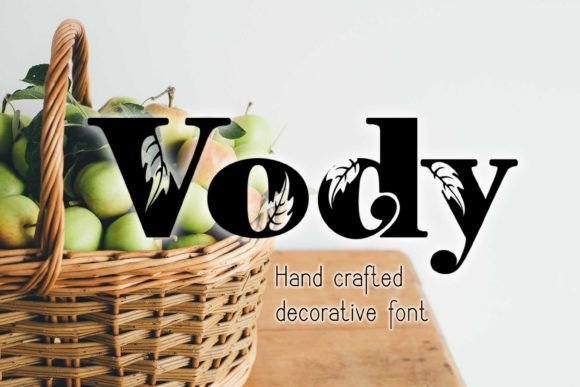
Feast your eyes on Vody Font, the culinary maestro that brings mouthwatering elegance to your food packaging designs! This decorative font is a visual symphony of swirling strokes and delectable curves, captivating the essence of gastronomic artistry. Vody transforms your packaging into a canvas of culinary delights, enticing customers with a feast for the eyes before they've even tasted your culinary creations.
Unleash the tantalizing allure of Vody Font and watch as your food products leap off the shelves, seduced by the irresistible charm of this typographic masterpiece. Let your packaging sing with the harmonized flavors of Vody, captivating customers with its magnetic aura.
Visualize your food packaging adorned with Vody Font, a symphony of flavors dancing across the surface. Its vibrant strokes evoke the succulent juiciness of ripe fruits, the golden crispness of pastries, and the rich aroma of roasted beans. With Vody, your packaging becomes a culinary masterpiece in its own right, elevating your products to gourmet status.
Impress discerning foodies and casual diners alike with the sophisticated allure of Vody Font. Its decorative flourishes add a touch of artisanal flair, hinting at the dedication and passion poured into your culinary creations. Whether you're packaging artisanal chocolates, gourmet cheeses, or tantalizing pastries, Vody Font elevates your products to the realm of luxury.
In a sea of bland packaging, your products adorned with Vody Font will stand out like a Michelin-starred dish among fast-food fare. Its captivating strokes and delectable curves draw attention like a magnet, inviting customers to explore the culinary wonders within. Vody Font is the secret ingredient that transforms your packaging into a marketing masterpiece, captivating customers and driving sales.
Whether you're a culinary artist, a packaging designer, or simply a passionate foodie, Vody Font is your passport to typographic excellence. Its versatility extends beyond food packaging, gracing book covers, posters, flyers, and other creative endeavors with its decorative charm. Unleash your creativity and let Vody Font be your culinary muse, inspiring you to create packaging that leaves an unforgettable impression.
Embrace Vody Font, the culinary font that tantalizes taste buds and ignites imaginations. Let its delectable strokes and tantalizing curves transform your food packaging into a feast for the eyes, a testament to your culinary artistry. Vody Font is more than just a font; it's an invitation to indulge in a world of gastronomic delight.